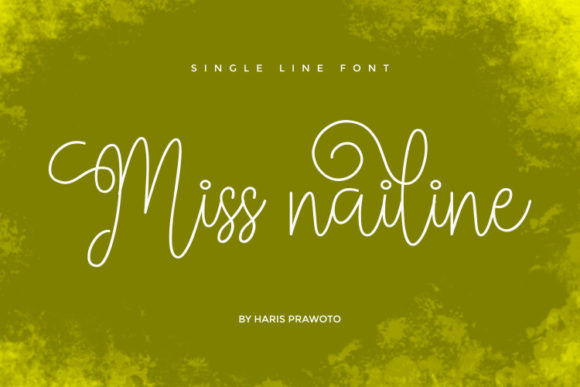
Journey into the world of Miss Nailine Font, a captivating script font that dances across your designs with grace and charm. Its delicate strokes and authentic feel will ignite your creativity, transforming ordinary words into captivating expressions. Picture the joy of gifting a loved one a personalized card adorned with Miss Nailine's elegant letters, carrying a heartfelt message that speaks volumes.
With Miss Nailine Font, your social media posts will bloom with eye-catching allure, captivating your audience with its unique charm. Create stunning wedding invitations that evoke heartfelt emotions, encapsulating the essence of love and unity. Let your stationary art radiate with sophistication, leaving a lasting impression that lingers in the hearts of your recipients.
Miss Nailine Font is the ultimate companion for creating cute greeting cards that warm hearts and spread joy. Its versatility extends to logos and branding, adding a touch of warmth and personality to your business identity. Unleash your creativity and let Miss Nailine Font elevate your designs to new heights of beauty and elegance.
This exquisite font is not just a tool; it's an experience that ignites your imagination. Embrace the magic of Miss Nailine Font and unlock the endless possibilities of self-expression. Discover the joy of crafting designs that resonate with your soul and leave an indelible mark on the world. Immerse yourself in the enchanting world of Miss Nailine Font and let your creativity blossom like never before.